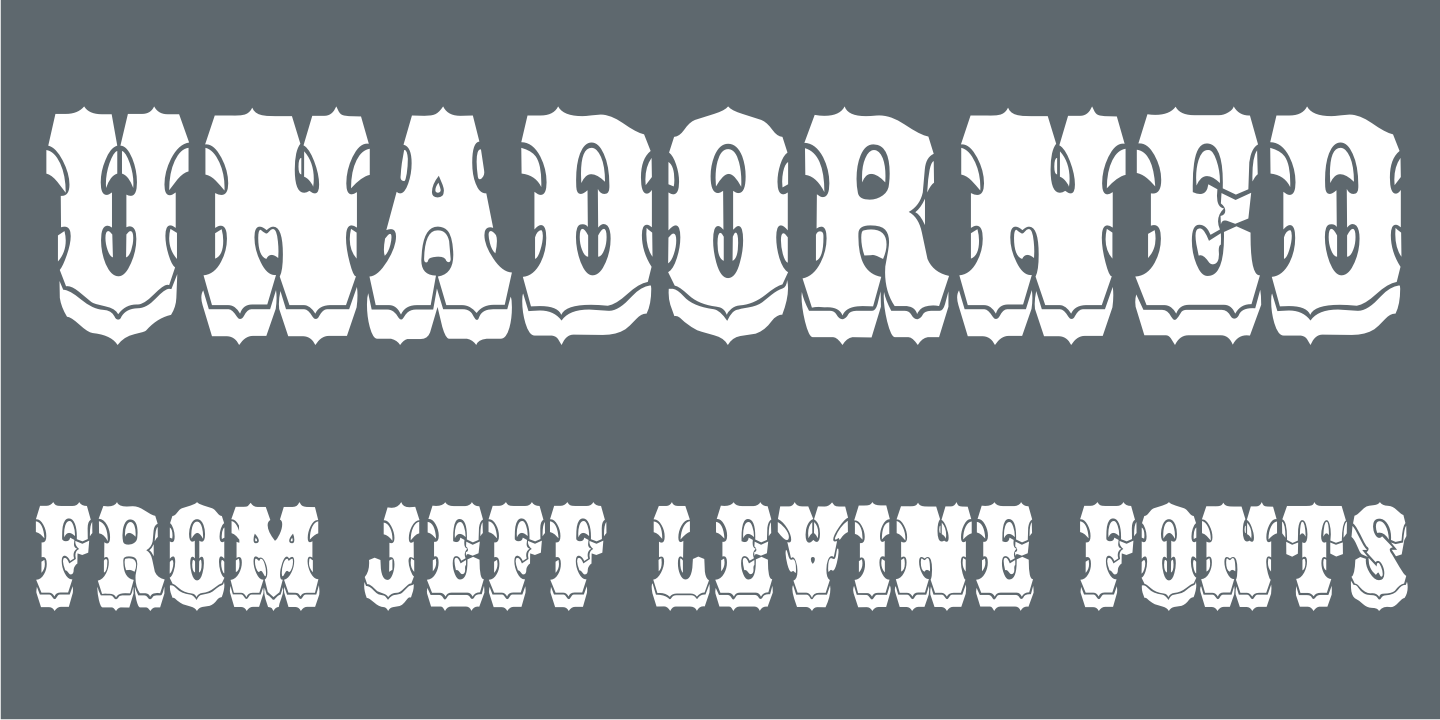
Unadorned
Unadorned JNL is the stripped down version of 2011's Troubador JNL; an ornate wood type font.
With the inner ornamentation removed, this Western-influenced type design takes on a bolder look, yet retains its Victorian decorative charm.